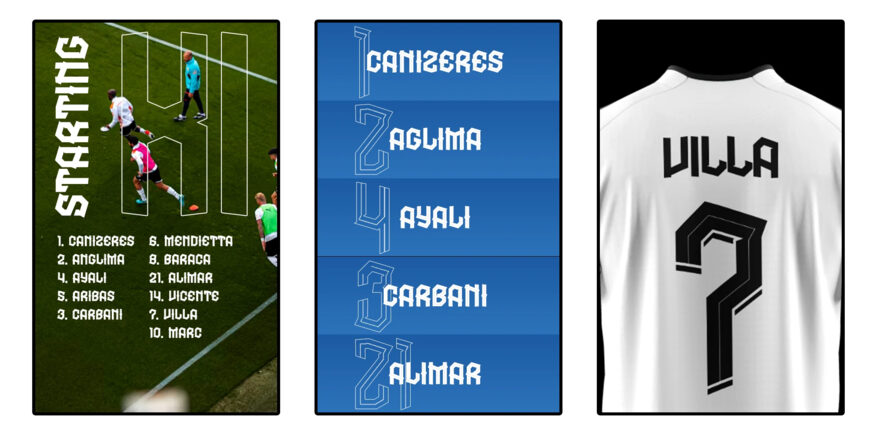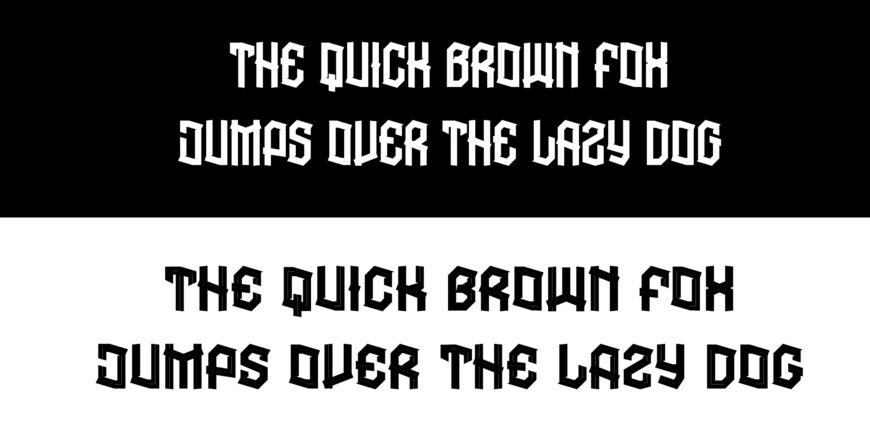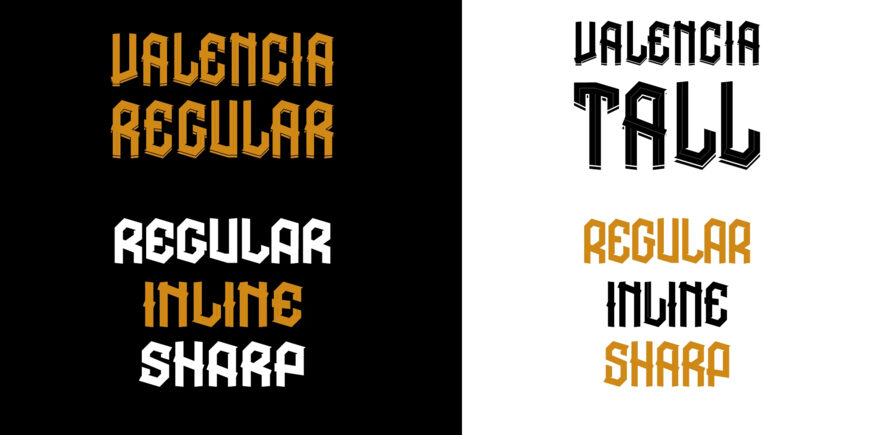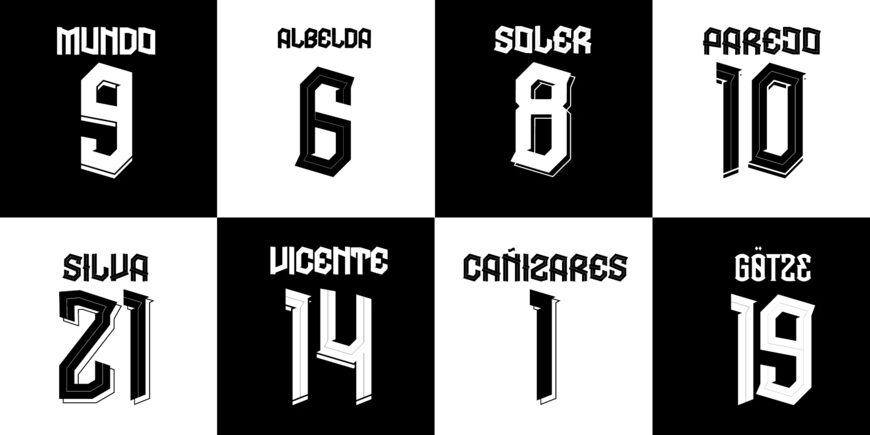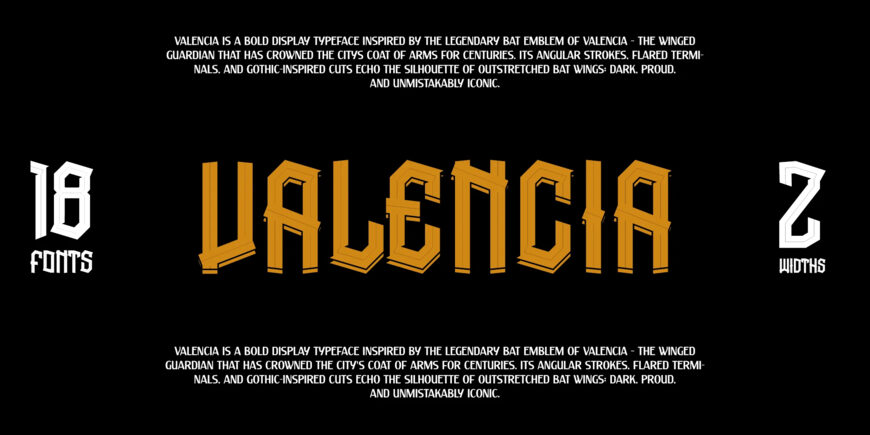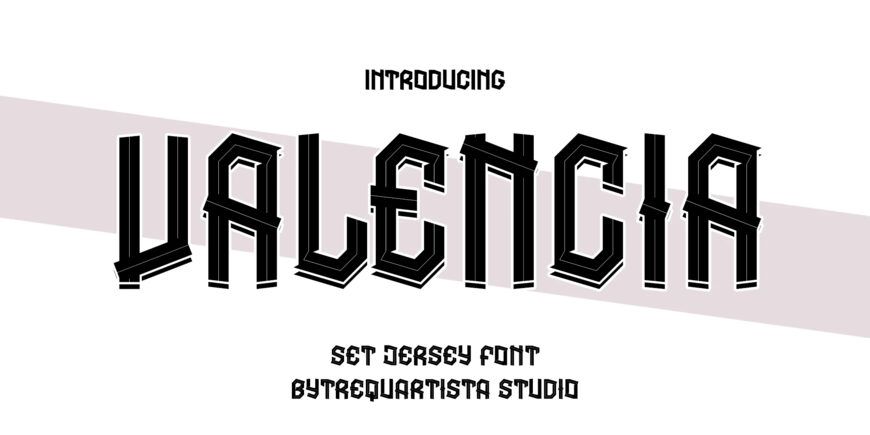
Valencia Font Family
Valencia is a bold, heraldic display typeface inspired by the legendary bat of Valencia — angular letterforms, flared terminals, and sharp gothic-inspired cuts that echo the silhouette of outstretched wings above a city built on pride.
Each letterform is constructed with aggressive angular stress and confident blackletter-rooted proportions, capturing the spirit of a winged guardian and the identity of a shirt worn under the Mestalla lights. From the solid presence of the Regular cut to the dimensional depth of Shadow and the engraved detail of Inline, Valencia was designed as a complete jersey type system — built to move seamlessly from name to number, from crest to kit, without losing its character.